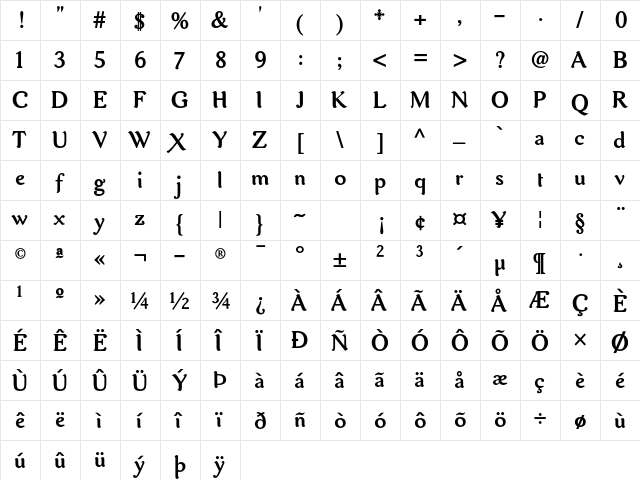
Aurelis ADF No2 Std Bold
| Foundry | Arkandis Digital Foundry. |
| Designer | Hirwen HARENDAL |
Design Context for Aurelis ADF No2 Std Typeface
Aurelis ADF No2 Std offers clean, dependable letterforms without strong stylistic allegiance, making it a practical choice for designers who need flexibility. The heavy weight commands attention and anchors typographic hierarchies.